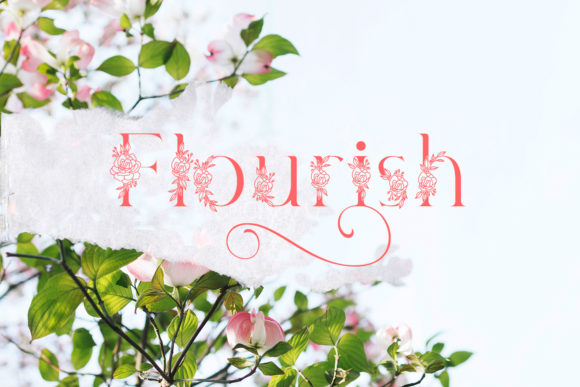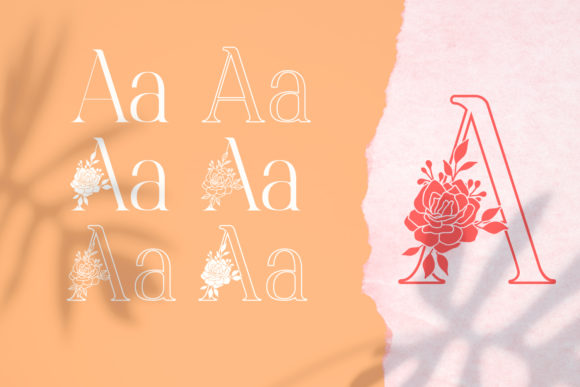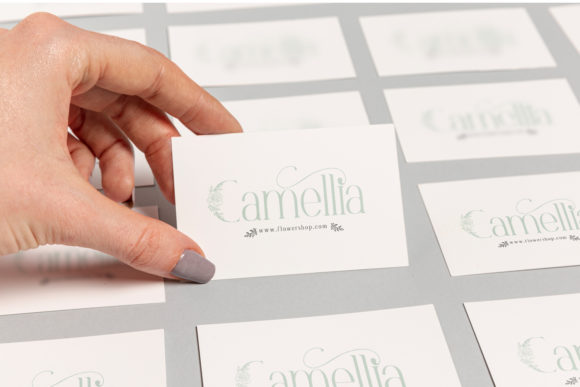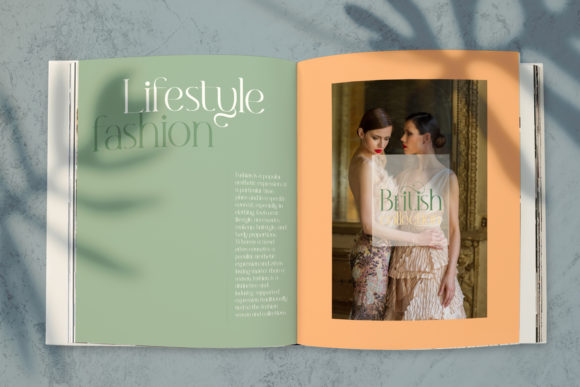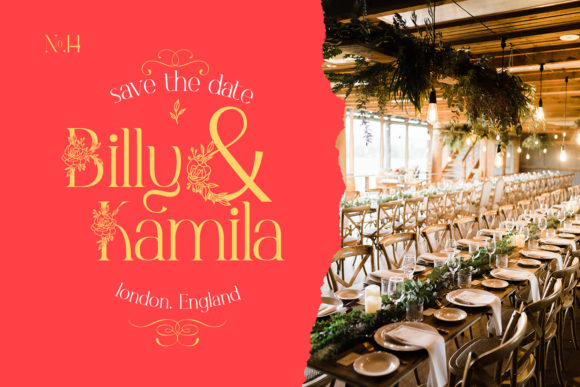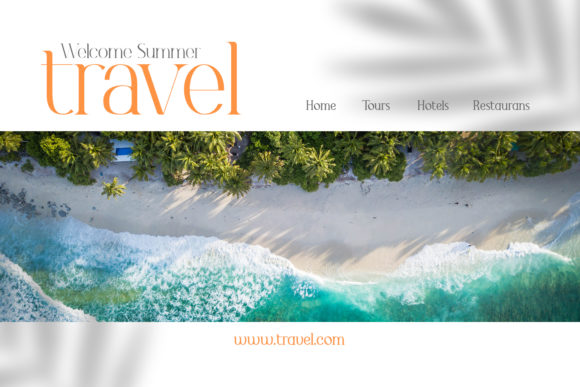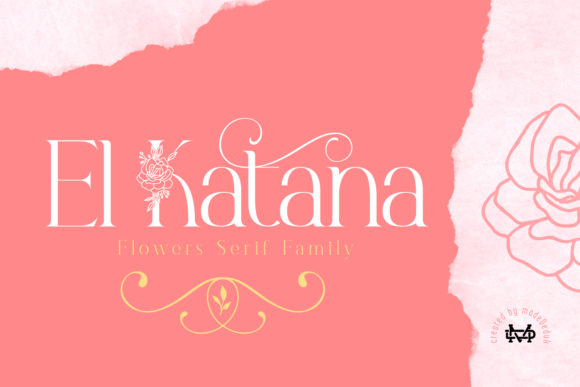
Discover the Elegance of El Katana Font: A Versatile Serif Beauty
Are you on the hunt for a font that exudes elegance, sophistication, and versatility? Look no further than El Katana, a stunning thin and delicate serif font that’s sure to capture your heart. With its incredibly versatile style, El Katana is perfect for creating a wide range of designs, from gorgeous wedding invitations and beautiful stationery art to eye-catching social media posts and more.
The Characteristics of El Katana Font
El Katana is a masterclass in subtlety, boasting a delicate and refined aesthetic that’s perfect for designs that require a touch of sophistication. This thin serif font features:
- Delicate lines: El Katana’s slender lines and curves create a sense of elegance and refinement, making it perfect for designs that require a touch of luxury.
- Sophisticated serifs: The font’s serifs add a touch of classic sophistication, giving El Katana a timeless feel that’s perfect for wedding invitations, stationery, and more.
- Versatile style: El Katana’s versatile style makes it perfect for a wide range of designs, from formal to informal, and everything in between.
Uses for El Katana Font
El Katana’s versatility makes it perfect for a wide range of design applications, including:
- Wedding Invitations: Create stunning wedding invitations that exude elegance and sophistication with El Katana.
- Stationery Art: Add a touch of luxury to your stationery art with El Katana’s delicate lines and sophisticated serifs.
- Social Media Posts: Make your social media posts stand out with El Katana’s eye-catching style.
- Branding and Packaging: Use El Katana to create beautiful branding and packaging designs that reflect your brand’s values and aesthetic.
Why Designers and Crafters Love El Katana Font
Designers and crafters are drawn to El Katana for a variety of reasons, including:
- Ease of use: El Katana is incredibly easy to use, making it perfect for designers and crafters of all skill levels.
- High-quality design: El Katana’s delicate lines and sophisticated serifs make it a high-quality font that’s perfect for professional designs.
- Versatility: El Katana’s versatile style makes it perfect for a wide range of design applications.
Tips for Getting the Most Out of El Katana Font
To get the most out of El Katana, try the following tips:
- Experiment with different sizes: El Katana looks great in a variety of sizes, from large headings to small body text.
- Pair with other fonts: El Katana pairs beautifully with other fonts, so don’t be afraid to experiment with different combinations.
- Use it for headlines and body text: El Katana is perfect for both headlines and body text, making it a great all-around font for your designs.
El Katana is a stunning thin and delicate serif font that’s perfect for designers and crafters who want to add a touch of elegance and sophistication to their designs. With its incredibly versatile style, El Katana is perfect for a wide range of design applications, from wedding invitations and stationery art to social media posts and more. So why wait? Fall in love with El Katana’s beautiful style and start creating gorgeous designs today!